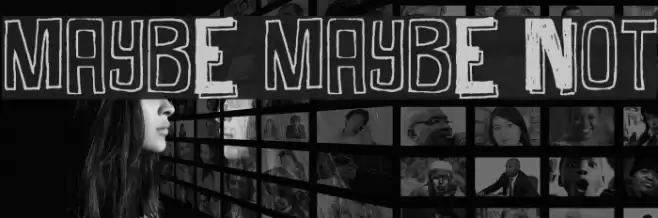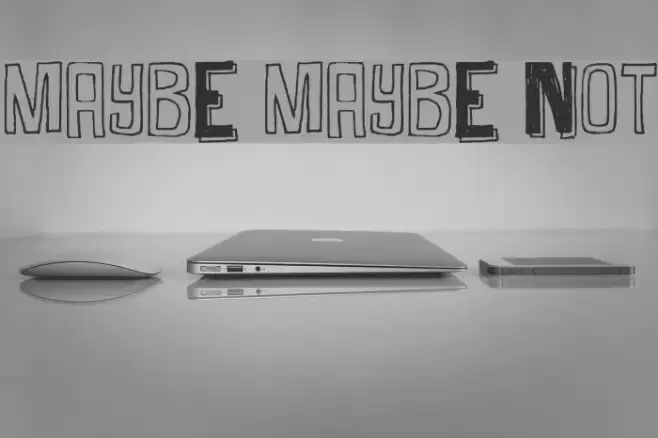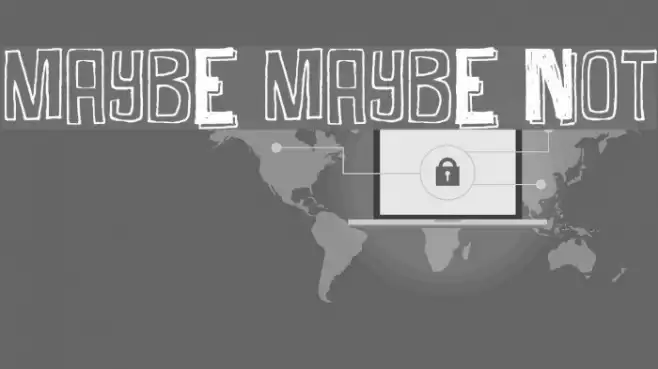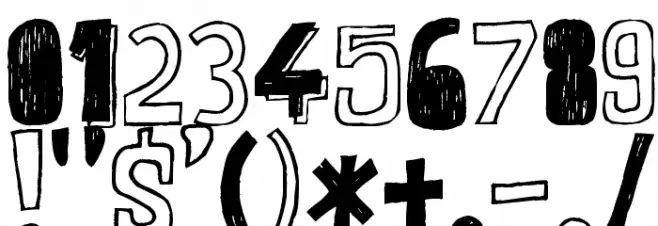
Maybe Maybe Not Font
Maybe Maybe Not Description
This font features a bold, hand-drawn style with a rough, textured appearance. The letters are uppercase and display a playful, artistic vibe, reminiscent of chalk or marker drawings. The characters have an uneven, sketch-like quality, adding to their charm and uniqueness. The numbers and special characters follow the same design, maintaining consistency throughout. This font is ideal for projects that require a casual, creative touch, such as posters, flyers, or artistic branding.
A bold, hand-drawn font with a rough, textured appearance from Uncategorized fonts.
- Proposed Projects: Ideal for posters, flyers, artistic branding, and creative projects.